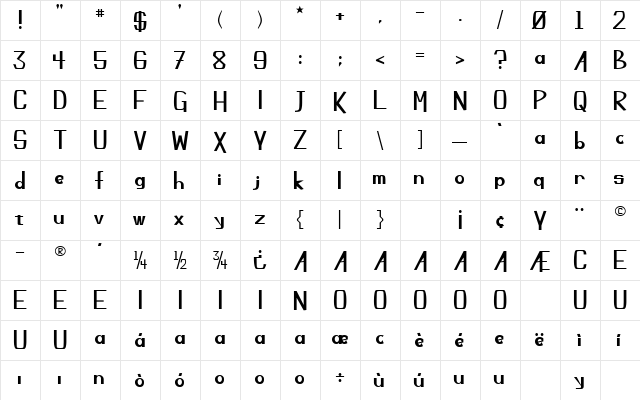
Champlin Regular Font Preview
Champlin Regular
Champlin Regular Font Details
Design Context for Champlin Typeface
Champlin is a composed and adaptable typeface that performs quietly and consistently across a wide range of design contexts.